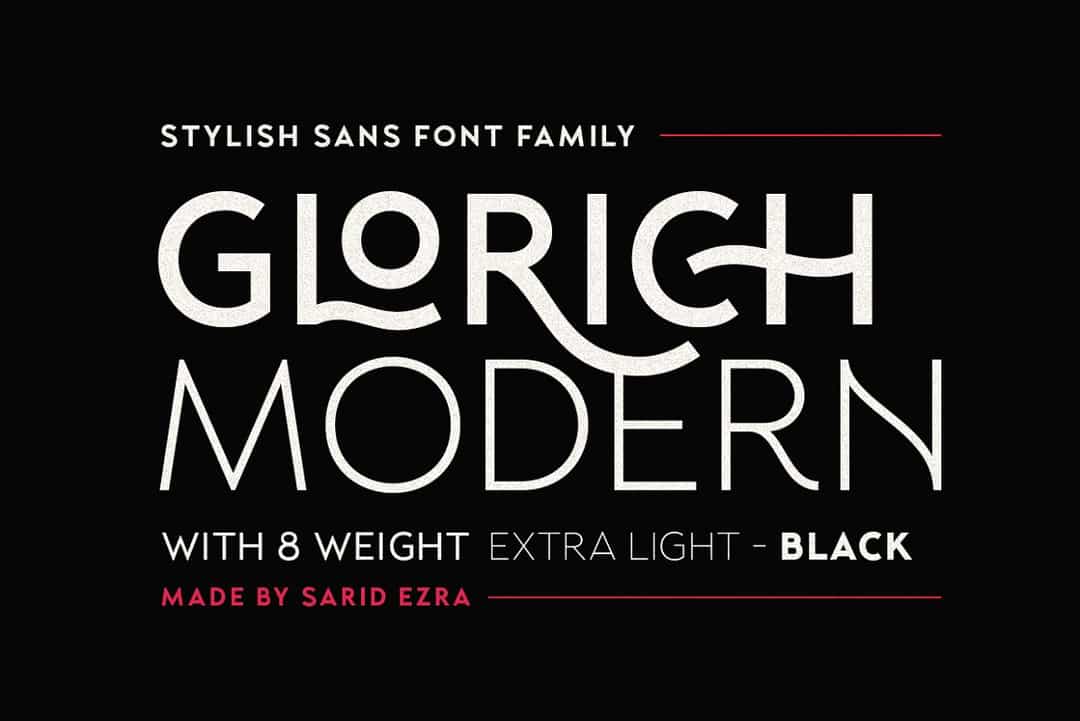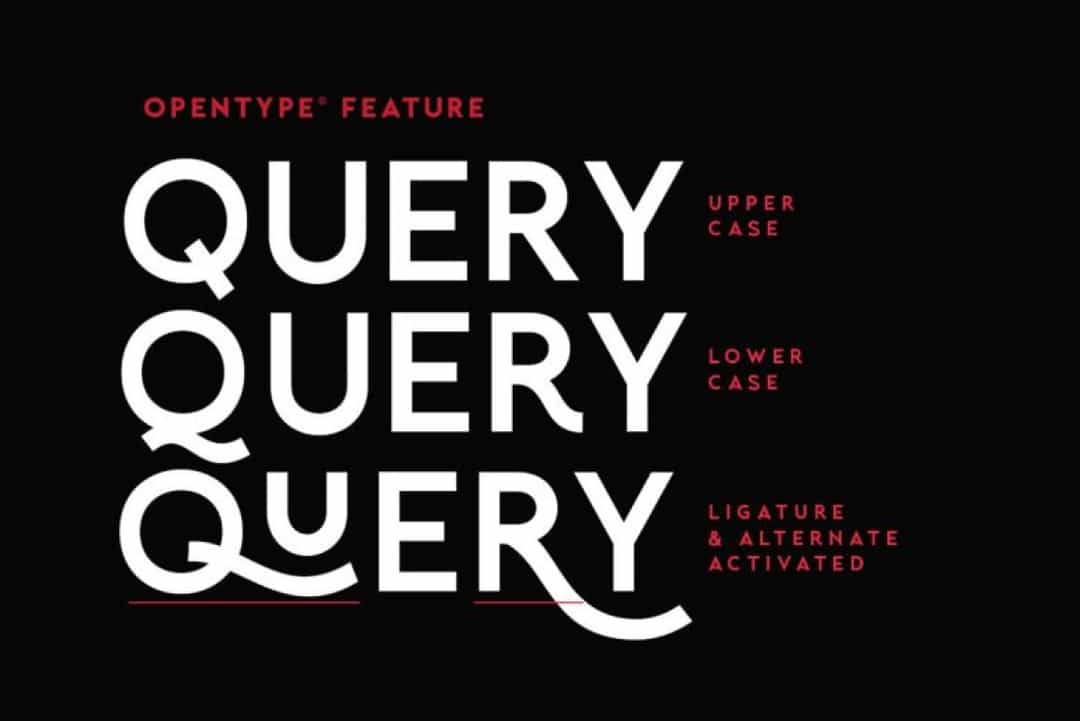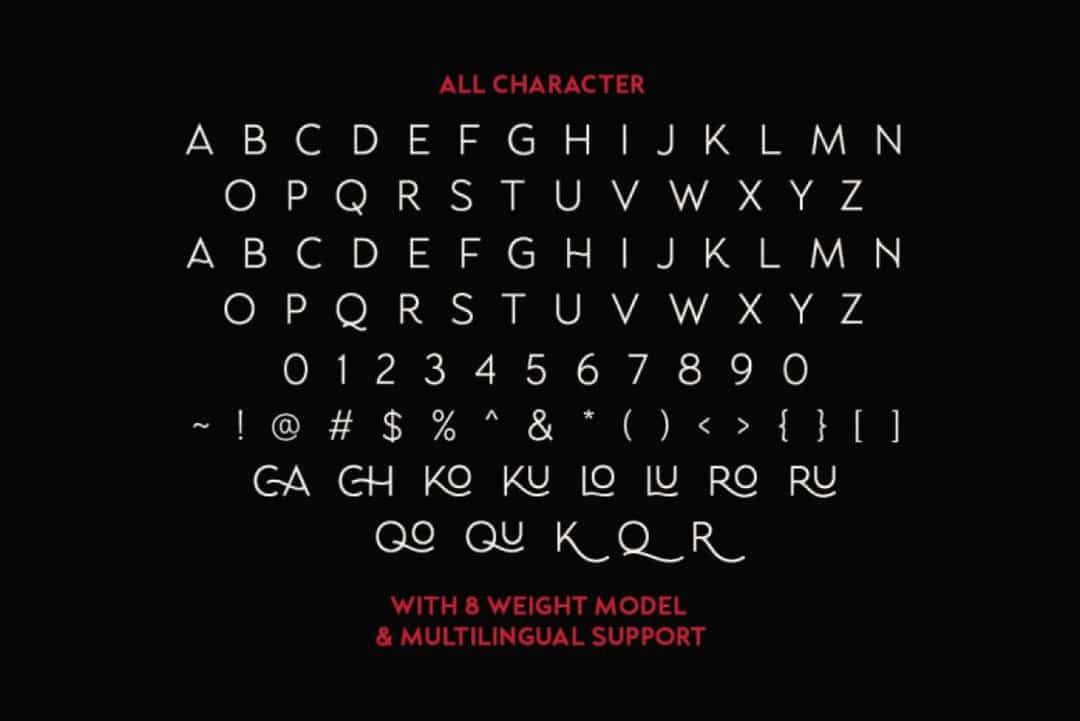
Discover Glorich Font, part of the Sans Serif collection—a versatile and unique font perfect for adding a personal touch to your projects. Download it for free and enjoy crafting designs with style, from invitations to social media posts. This font is available exclusively for personal use, giving you the freedom to create without limits. Unlock your creativity with Glorich Font today!
Glorich is an all-caps sans serif font with alternative ligatures and ligatures! One unique aspect is that this font supports alphabets with slight differences between lowercase and uppercase letters!